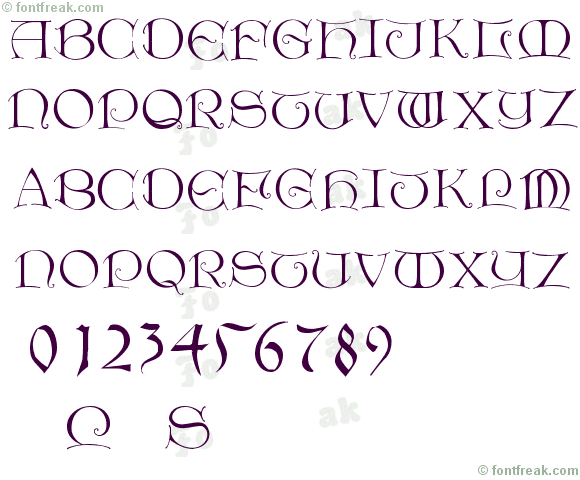
LightUnciale
About LightUnciale
LightUnciale, designed by Manfred Klein in November 2003, is an exquisite display font that falls under the category of decorative serif. This typeface captures the essence of medieval calligraphy, featuring elongated ascenders and descenders that give it a classic, elegant flair. The stroke weight is delicately balanced, combining thin and thick transitions that enhance its visual appeal while maintaining readability. The generous spacing between the letters adds a touch of sophistication, allowing each character to breathe and stand out, making it a perfect choice for various creative projects.
This font is particularly suited for a range of use cases. Its ornate style makes it ideal for wedding invitations, where romance and elegance are paramount. Additionally, LightUnciale would shine on movie posters, especially for period dramas or fantasy films, where an air of mystique can attract viewers. For restaurant menus, especially those featuring gourmet or high-end cuisine, this font can elevate the dining experience by reflecting sophistication. Furthermore, it can be effectively used in branding and logo design for artisanal shops or boutiques, where a unique and artistic touch is desired.
Targeting graphic designers, small business owners, and content creators, LightUnciale offers a versatile option for those looking to infuse a sense of history and charm into their projects. The font's decorative elements—such as its playful swirls and distinctive character shapes—make it stand out in a crowded marketplace.